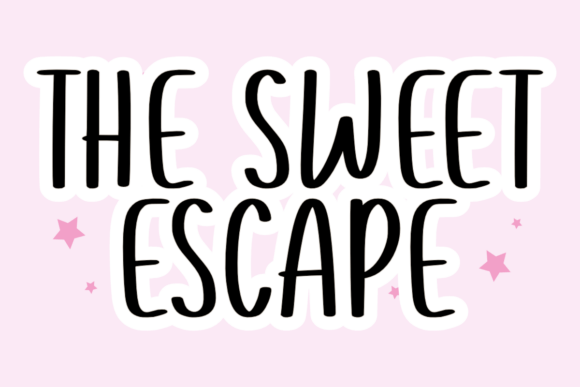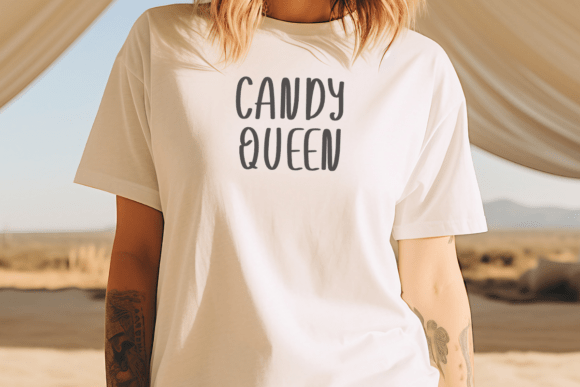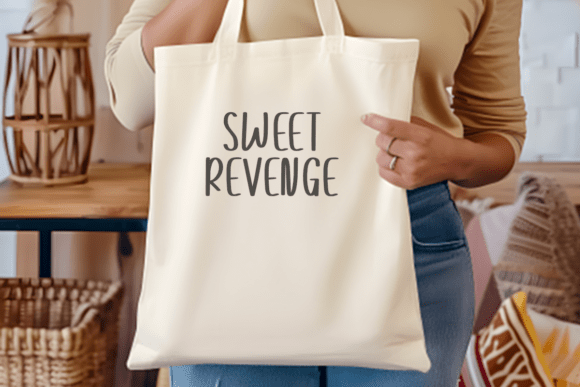
Introduction to Funny Candy Font
Remember the thrill of creating a handmade card for a loved one, the satisfaction of watching your child’s face light up with a DIY project, or the joy of journaling your thoughts and feelings in a beautiful notebook? For many of us, crafting is more than just a hobby – it’s a way to express ourselves, connect with others, and preserve memories. And when it comes to adding that special touch to our creative projects, the right font can make all the difference.
That’s where the Funny Candy Font comes in – a delightful, high-quality handwriting font that’s perfect for planners, stickers, cards, quotes, and craft projects. With its free download and transparent background, this design resource is a must-have for any crafter looking to elevate their creative project. In this article, we’ll dive into the world of Funny Candy Font and explore why it’s a valuable addition to any designer’s toolkit.
Key Features of Funny Candy Font
- High-quality design with a unique, playful style perfect for creative projects.
- Comes in a single weight, ideal for adding a touch of whimsy to your design without overwhelming the composition.
- Designed as a versatile font, suitable for use in logos, titles, and body text for a wide range of creative projects.
- Perfect for designers looking for a fun and creative design resource that adds a touch of personality to their work.
Honest Review: Funny Candy Font
As a designer, I’m always on the lookout for high-quality design resources to enhance my creative projects. The Funny Candy Font caught my eye with its fun and playful style, making it perfect for adding a touch of whimsy to my designs. ✨
- High-quality design with a unique and playful style
- ⚠️ Limited font weights and styles available
- ⚠️ May not be suitable for formal or professional designs
Overall, I’m impressed with the Funny Candy Font. While it may have some limitations, its unique style and flexibility make it a great addition to any designer’s toolkit. If you’re looking for a fun and playful font to add some personality to your designs, I highly recommend giving it a try.
Getting the Most Out of Funny Candy Font
Some tips for getting the most out of Funny Candy Font include experimenting with different font sizes and colors, and combining it with other design elements to create a unique look.
The Funny Candy Font is perfect for use in creative projects such as social media graphics, posters, and flyers. It’s also great for use in children’s educational materials and party invitations.